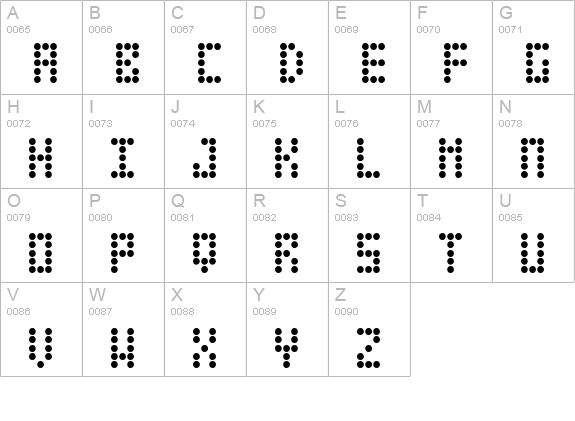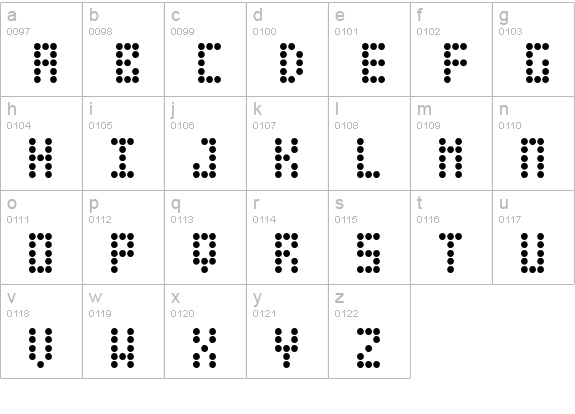
Leciceron Normal Font Details
Leciceron Normal is the standard, neutral variant in the Leciceron typeface family \xE2\x80\x94 well suited to general body text, paragraphs, and standard typographic work.
Leciceron Normal font is a beautifully designed typeface that exudes elegance and sophistication. With its clean lines and perfect balance between modernity and classic appeal, this font is perfect for a wide range of design projects. Leciceron Normal font features a timeless aesthetic that makes it suitable for both print and digital media. Its versatility allows it to effortlessly elevate any project, whether it be a logo, branding materials, invitations, or editorial designs. What makes Leciceron Normal font even more desirable is the fact that it is free. Yes, you read that right! This stunning font is freely available to download at FontsMarket.com. Whether you're a professional designer or a hobbyist, you can access this font without any cost, making it an excellent choice for those on a budget or simply looking to add a touch of sophistication to their projects. So why wait? Head over to FontsMarket.com and download Leciceron Normal font today. With its timeless beauty and free availability, it's a font that you simply can't afford to miss out on.